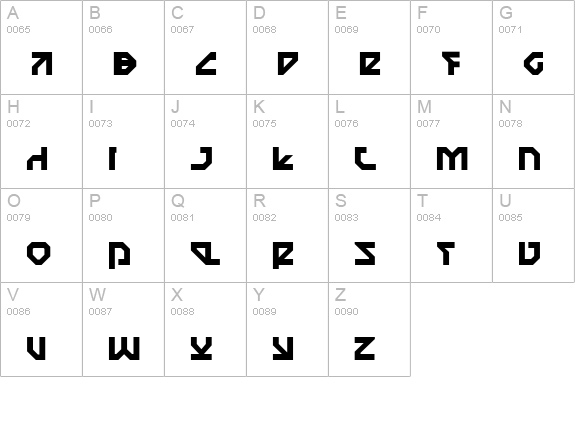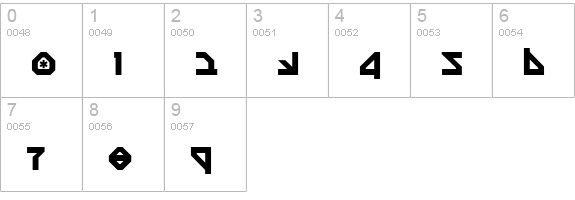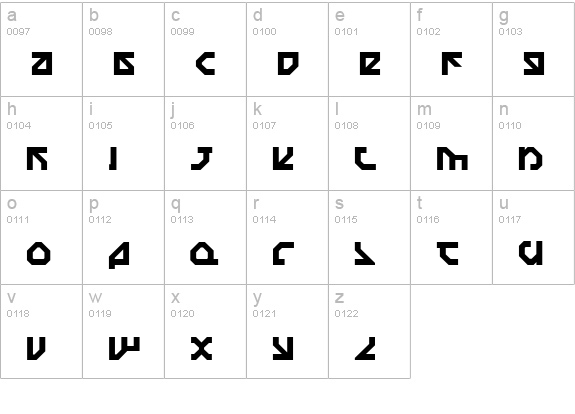
Nostromo font is a stunning display typeface that exudes elegance and sophistication. With its sleek lines and modern styling, Nostromo is perfect for a wide range of design projects, from branding to editorial design. The font features a unique blend of classic and contemporary elements, making it versatile and eye-catching. What's even better is that Nostromo font is available for free download at FontsMarket.com. This means you can add this beautiful typeface to your collection without having to spend a dime. Whether you're a seasoned designer or just starting out, Nostromo font is sure to elevate your projects and leave a lasting impression. Don't miss out on this fantastic opportunity to enhance your designs with this exquisite font. Download Nostromo today and let your creativity shine!